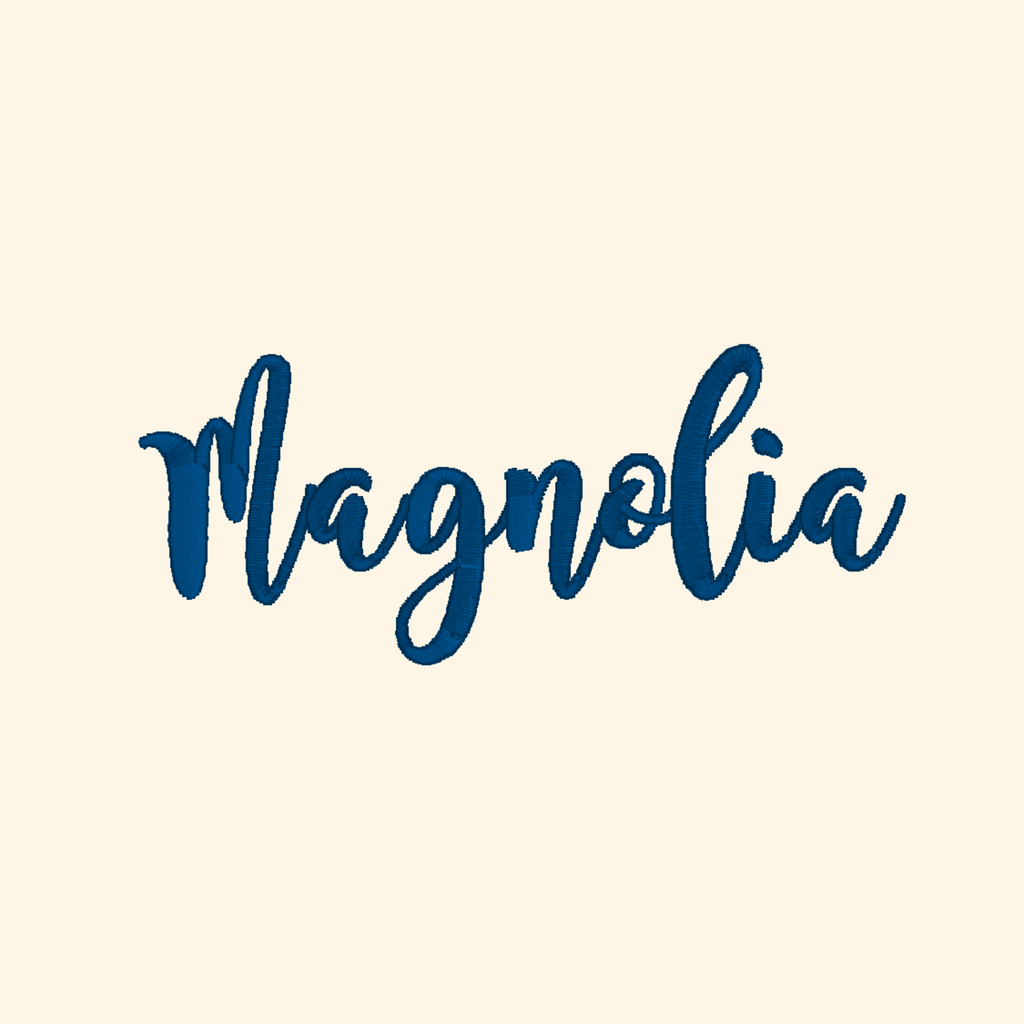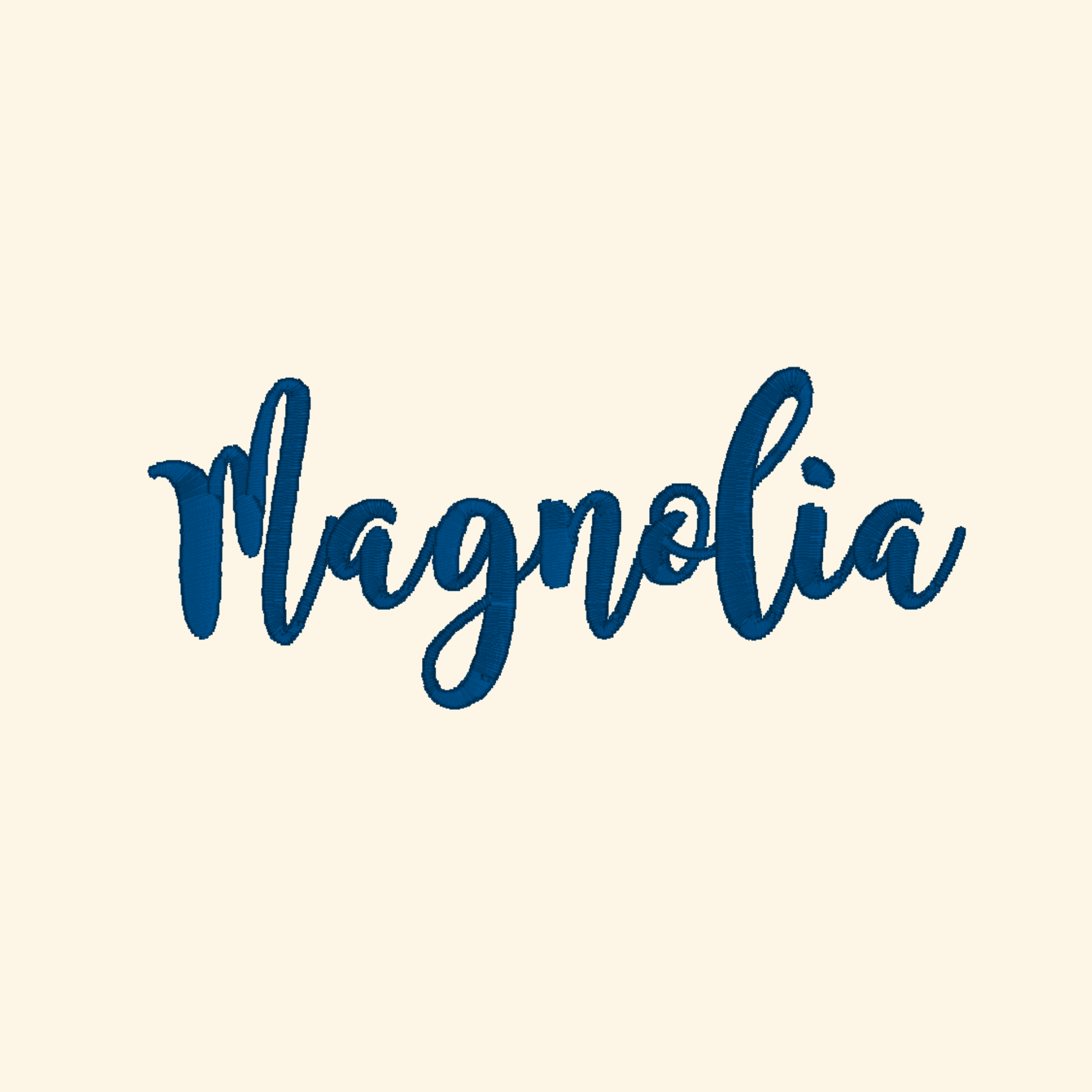
🪡Magnolia - premium embroidery font.
Take your projects to the next dimension with Magnolia - professional machine embroidery alphabet! Specially digitized for high-impact results, this font is the perfect choice for creating any item that requires embroidery.